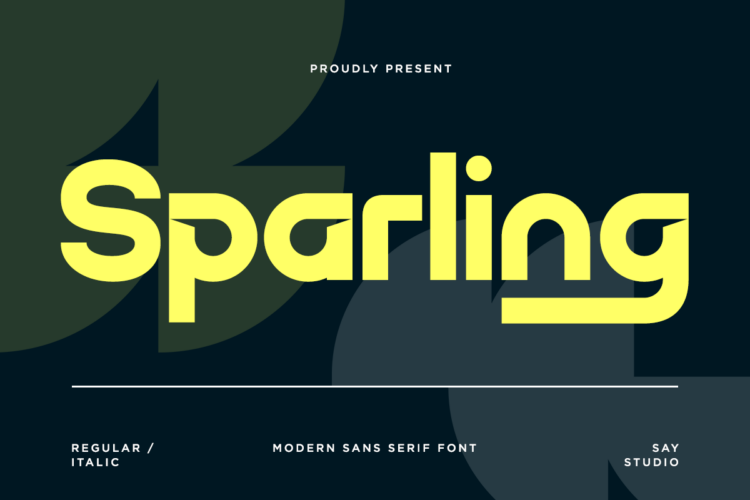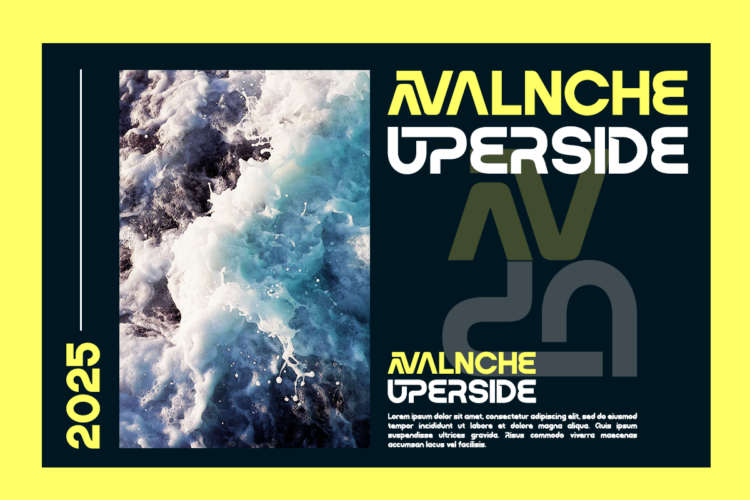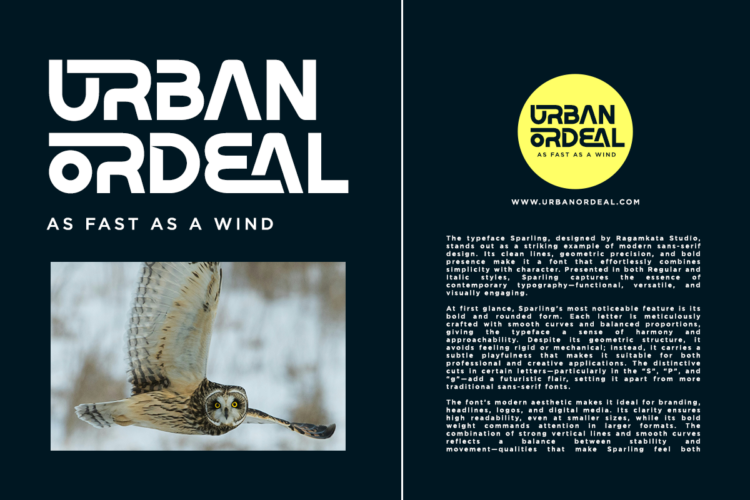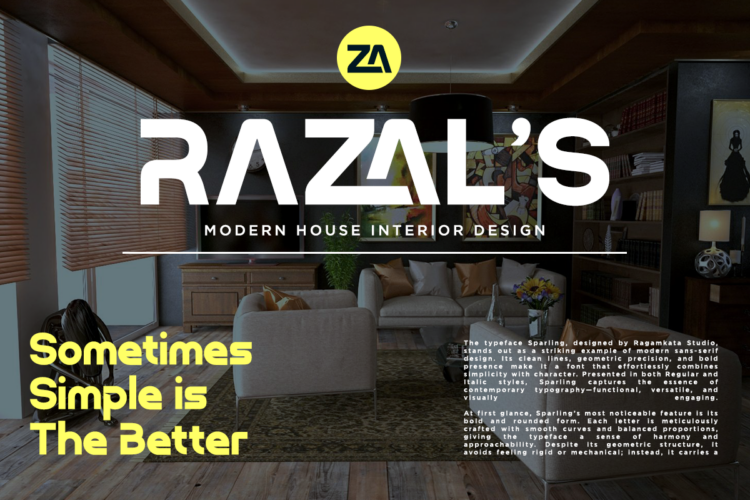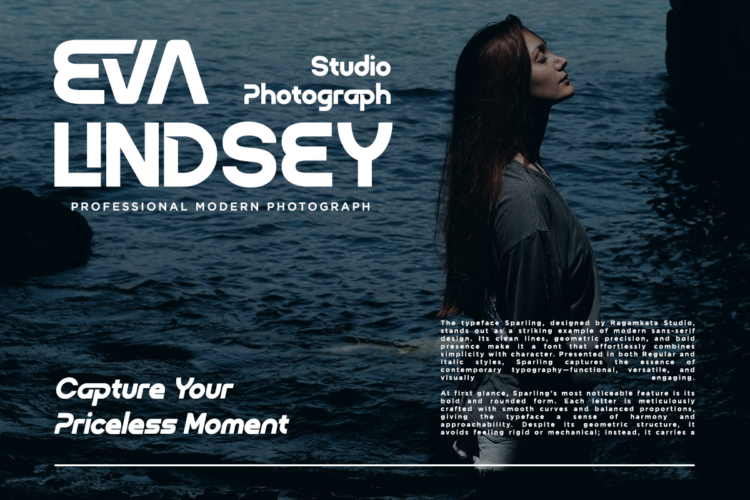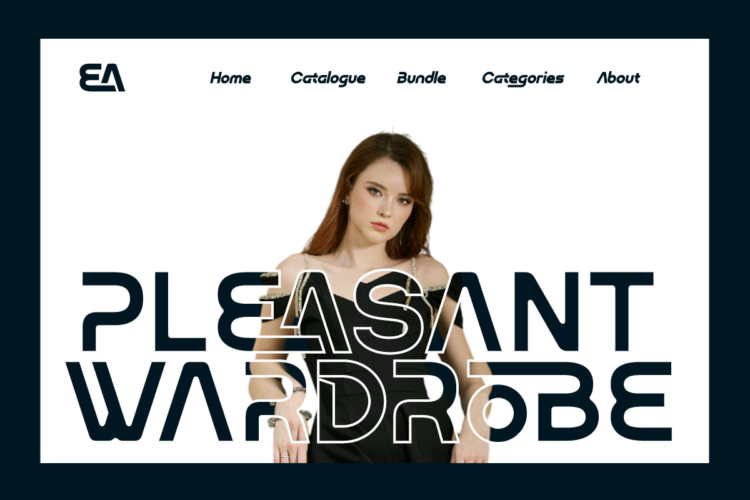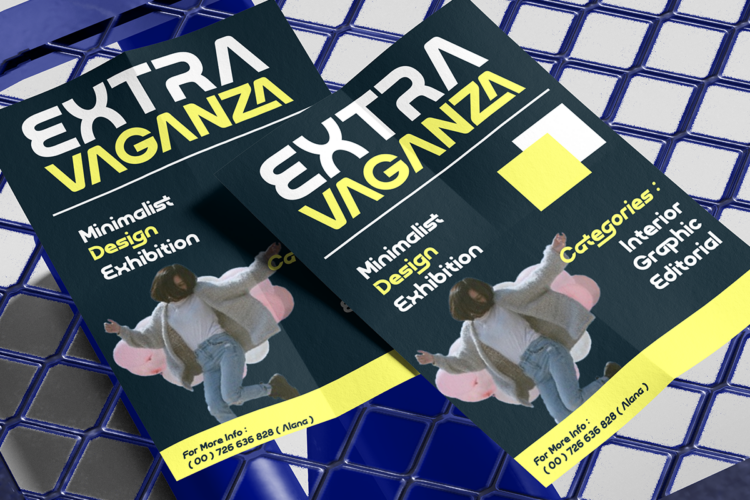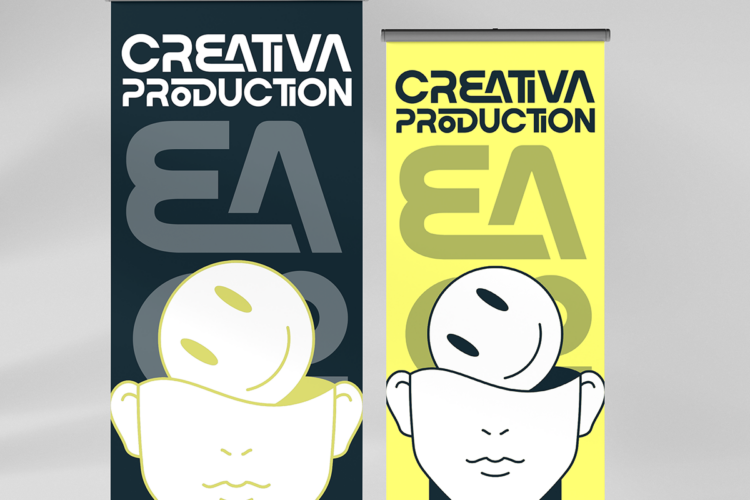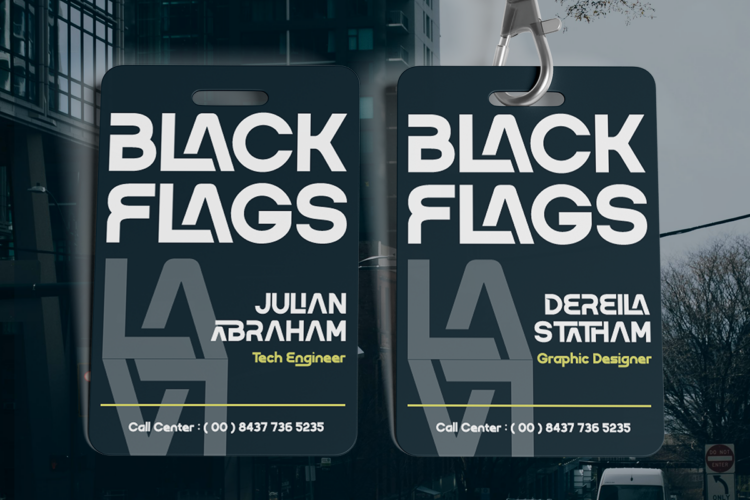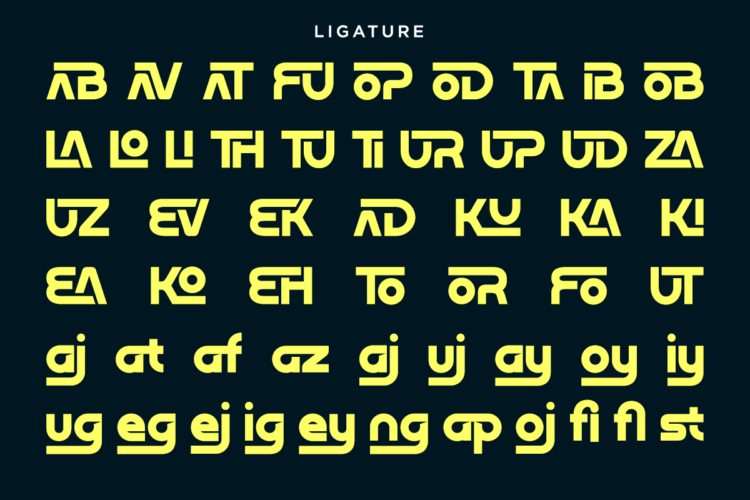
Sparling is a bold modern sans serif font designed to deliver powerful visual impact with clean geometric forms and futuristic styling. Built with strong proportions, unique ligatures, and contemporary letterforms, Sparling creates a confident identity that stands out across digital and print media. Its minimalist structure and modern aesthetics make it perfect for brands seeking a sleek, innovative, and professional appearance.
Designed for technology, startups, corporate branding, esports, architecture, advertising, editorial layouts, posters, UI design, social media, and premium marketing materials, Sparling provides exceptional flexibility for a wide range of creative projects. Featuring multilingual support, OpenType ligatures, stylistic alternates, numerals, and punctuation, it ensures polished typography with excellent readability in both headlines and display applications.
Whether you’re designing logos, websites, mobile interfaces, packaging, promotional campaigns, business presentations, magazine covers, or futuristic branding systems, Sparling delivers a bold and modern personality that commands attention. Its geometric construction and versatile design make it an excellent choice for designers looking to create impactful and memorable visual identities.
Sparling – Bold Modern Sans Serif